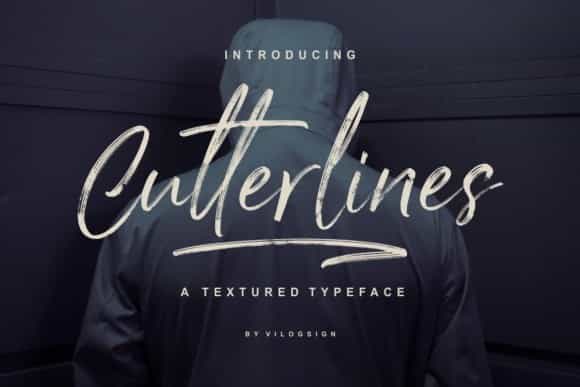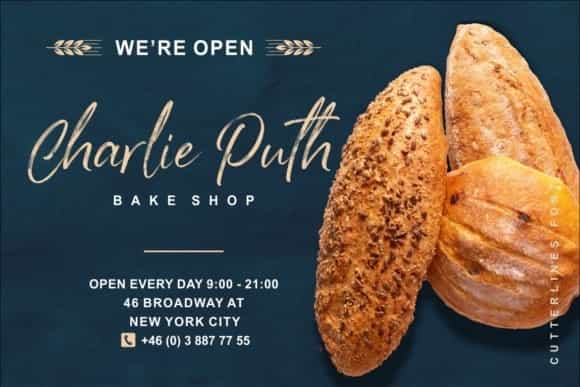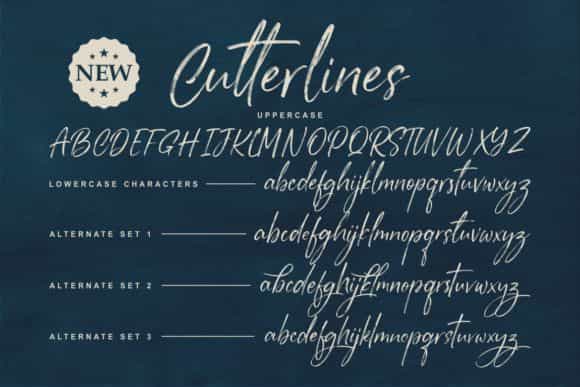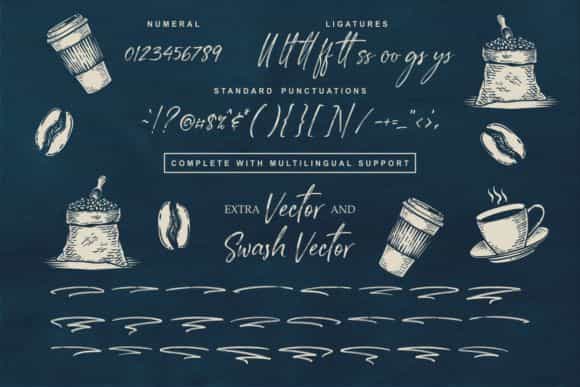
Cutterlines is an artisan brush font that unites lifestyle with street motifs. Due to its focus on stoke and sharp edging it is ideal for communication, in designs ideal for logos, clothing, phrases, product labeling or any work that requires typographical style. Applying both lower case letters can be quite helpful when it comes to designing texts.